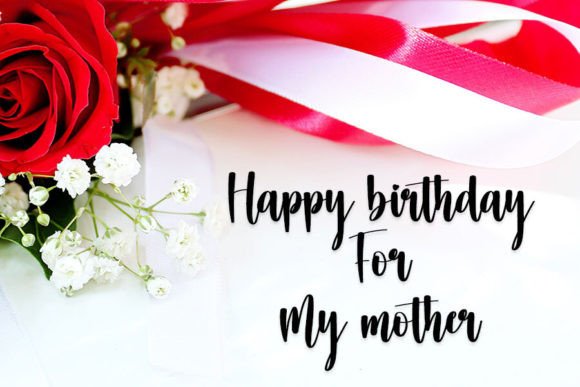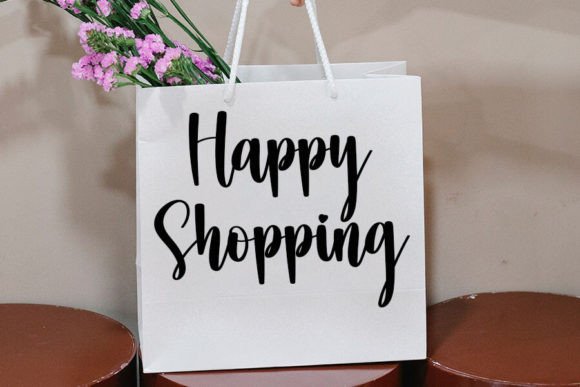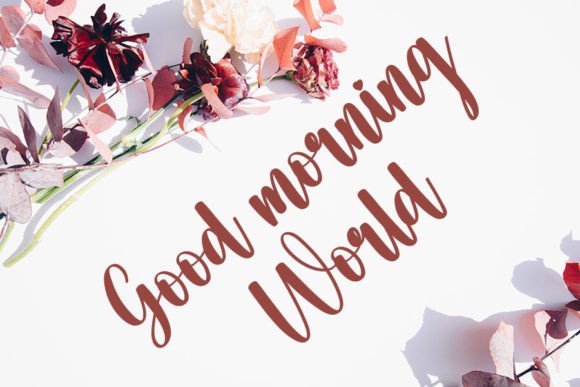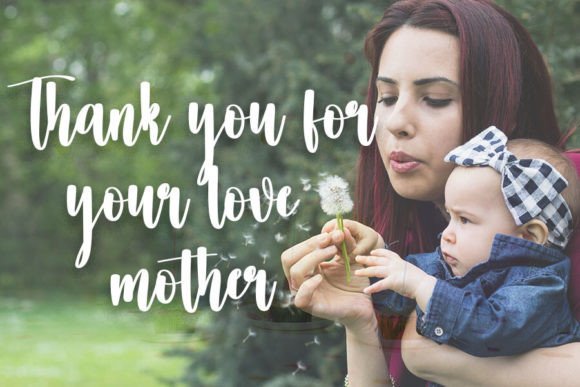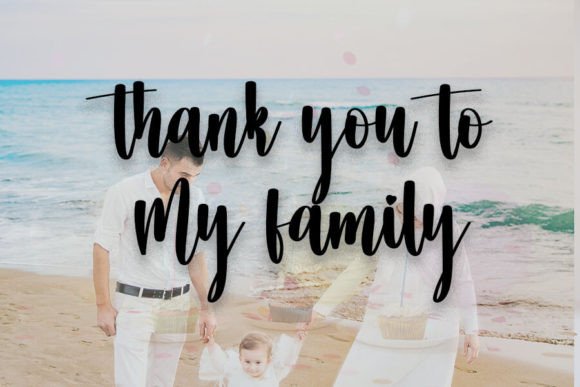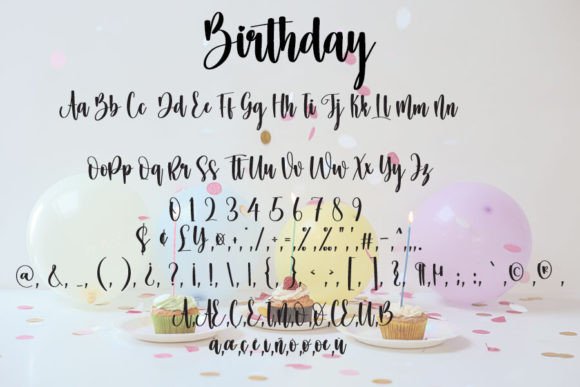
The Birth of a Beautiful Font: A Designer’s Love Affair with Birthday
I’ll never forget the moment I stumbled upon the Birthday font. I was working on a project for a client’s birthday party invitation, and I was struggling to find the perfect font. I had scrolled through countless options, but none seemed to capture the elegance and playfulness I was looking for. That was until I discovered Birthday – a neat and beautiful handwritten font that instantly stole my heart.
With its incredibly distinct and timeless style, Birthday is perfect for designers, crafters, and creative hobbyists looking to add a touch of sophistication to their projects. In this article, I’ll share my honest review of the font, provide a practical guide on how to use it, and explore similar fonts and alternatives.
An Honest Review: What I Love and What I Don’t
• ✅ Elegant and sophisticated design
• ✅ Perfect for a variety of projects, from invitations to branding
• ✅ Unique and distinctive style that stands out from the crowd
• ⚠️ Limited availability of stylistic alternates
• ⚠️ May not be suitable for very formal or traditional designs
The Designer Inspiration Behind Birthday
While the true story behind Birthday’s creation may be unknown, it’s easy to imagine a designer sitting down with a pen and paper, inspired by the elegance of handwritten scripts. Perhaps they wanted to create a font that would evoke feelings of joy and celebration, perfect for birthday parties and special occasions.
Q: What type of projects is Birthday best suited for?
A: Birthday is perfect for a variety of projects, from invitations and party decorations to branding and advertising.
Q: Is Birthday a difficult font to read?
A: No, Birthday is highly legible, even at small sizes, making it perfect for a wide range of applications.